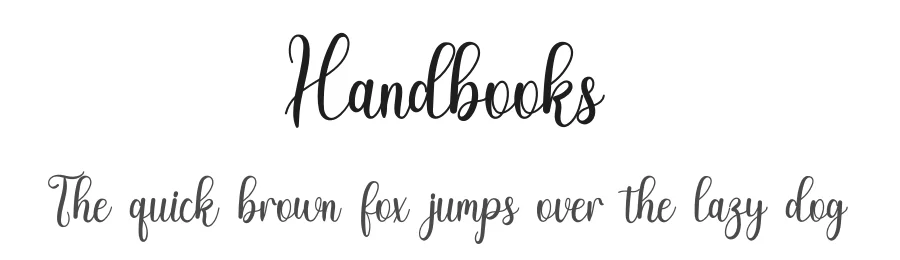
About Peanut Font
Peanut Specifications
| Font Family | Peanut |
| Full Name | Peanut |
| PostScript Name | PeanutRegular |
Peanut ships with 1 OpenType feature you can switch on in apps that support them (Illustrator, InDesign, Affinity, Figma, CSS font-feature-settings).
Peanut supports 197 languages.
Peanut Font is a script font that shines as a display or heading face. Pair it with a clean sans-serif or serif font for body text β the contrast creates a clear hierarchy while the two styles stay balanced and easy to read.
Peanut Font